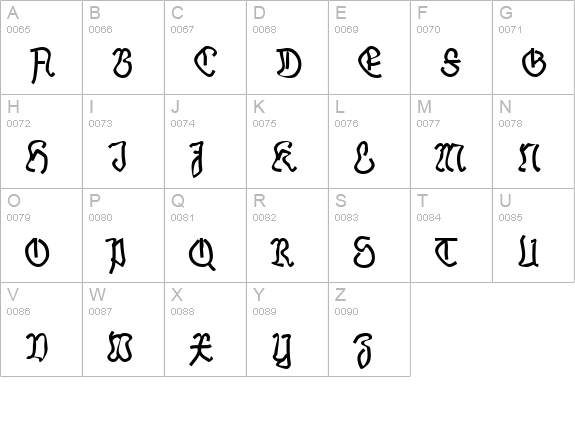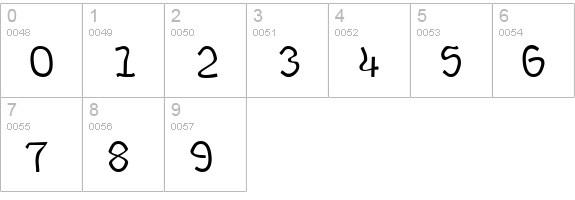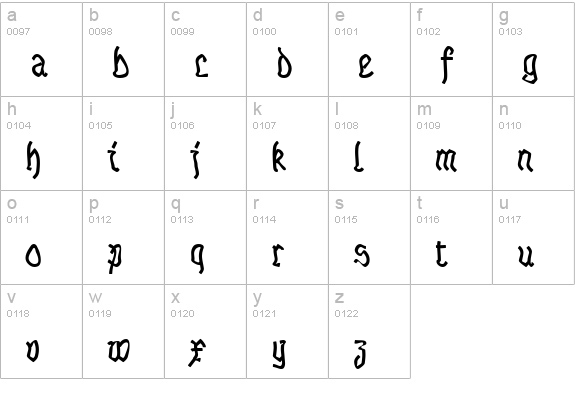
Talloween Font Details
Enter the enchanting world of Talloween font, a captivating typeface that will transport your designs to a realm of spooky elegance. With its delicate yet hauntingly beautiful letterforms, Talloween font is perfect for adding a touch of mystery and allure to your projects. Designed with meticulous attention to detail, Talloween font features intricate curves and shadows that give each letter a bewitching presence. Its unique blend of elegance and darkness makes it a versatile choice for a wide range of design applications, from Halloween-themed invitations and party posters to spooky merchandise and eerie book covers. But what sets Talloween font apart is not just its stunning design - it's also available to you for free! Yes, you read that right. Talloween font is freely available to download at FontsMarket.com, the go-to destination for high-quality fonts. Now, you can bring the spirit of Halloween to your designs without having to spend a dime. Whether you're a professional graphic designer or a Halloween enthusiast looking to add a touch of magic to your personal projects, Talloween font is the perfect choice. Its easy-to-read letterforms and wide range of characters ensure that you can create captivating designs with ease. So why wait? Embrace the spirit of Halloween and download Talloween font today, completely free, at FontsMarket.com. Let its enchanting beauty elevate your designs and captivate your audience. Don't miss out on this opportunity to add a touch of spooky elegance to your creations - get Talloween font now and let your creativity run wild.